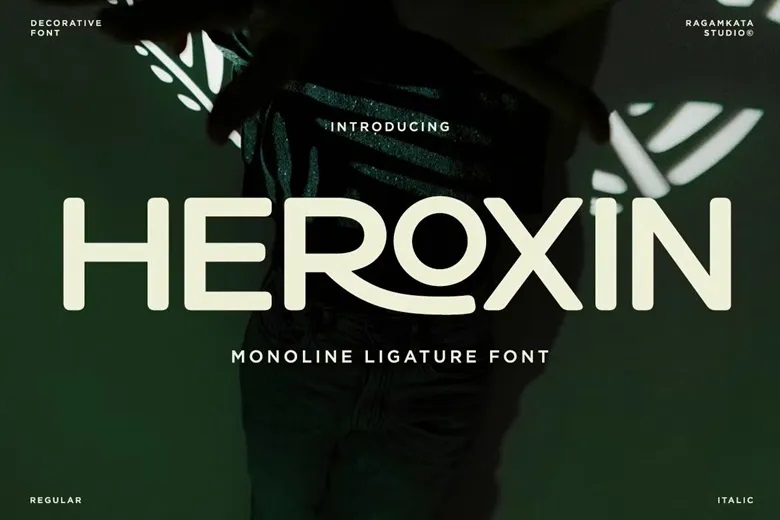
Heroxin Font
Heroxin font is a beautiful monoline ligature typeface that fits the transitional period between mid-century modernity and modern graphic design. Heroxin typeface is characterized by interlocking strokes and circular shapes which form the feeling of motion and unity. The Heroxin font is ideal to use in designing logos and social media graphics because it turns simple words into balanced, artistic pieces.
The long ligatures can give custom-like typography without any hand adjustment. The font is an excellent option to use in streetwear companies, cafes, and creative portfolios. Recombinant with an unobtrusive sans-serif to lend it some soberness, and the latter will transform any layout into a work of contemporary art.